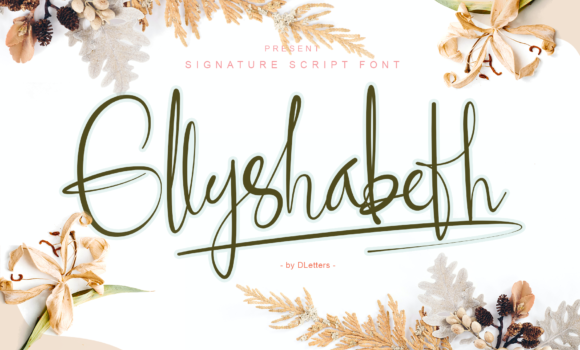
ellyshabeth
Ellyshabeth Font – Free Download Introduction to Ellyshabeth Font Ellyshabeth feels incredibly elegant and flowing. 📸 Preview Gallery 6 images 📌 Product Name Ellyshabeth Font 👤 Author DLetters.std 📂 Category Explore ⬇️ Download Ellyshabeth Font FREE Free Download • Instant